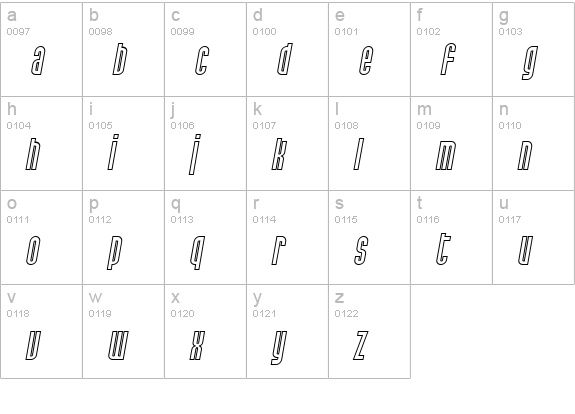
SF Port McKenzie Outline Italic Font Details
SF Port McKenzie Outline Italic is a distinctive, italic variant in the SF typeface family \xE2\x80\x94 well suited to design and typography projects.
SF Port McKenzie Outline Italic is a stunning and versatile font that effortlessly combines modernity with elegance. Its sleek and streamlined design captures attention effortlessly, making it the perfect choice for a wide range of creative projects. This font features a unique outline style with a subtle italic slant, adding a touch of sophistication to any text. The clean and crisp lines of SF Port McKenzie Outline Italic exude professionalism and refinement, making it an excellent choice for professional documents, presentations, and branding materials. With its wide range of characters and glyphs, SF Port McKenzie Outline Italic offers endless possibilities for customization. Whether you're designing a logo, creating eye-catching headlines, or crafting stylish invitations, this font provides the flexibility and versatility to bring your ideas to life. One of the best features of SF Port McKenzie Outline Italic is that it is freely available to download at FontsMarket.com. This means that you can easily access this remarkable font without any cost, making it an ideal choice for budget-conscious designers, students, and hobbyists. Whether you're a seasoned designer or just starting your creative journey, SF Port McKenzie Outline Italic is a font that will elevate your projects to new heights. Its modern and stylish design, combined with its accessibility and affordability, make it a must-have font in any designer's toolkit. So why wait? Download SF Port McKenzie Outline Italic today and let your creativity soar.